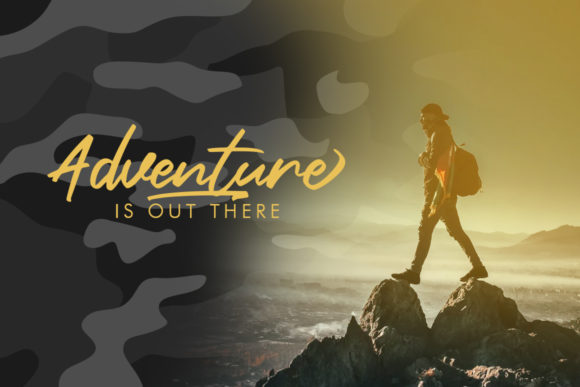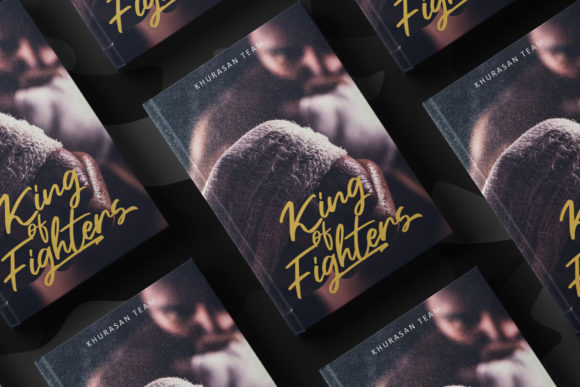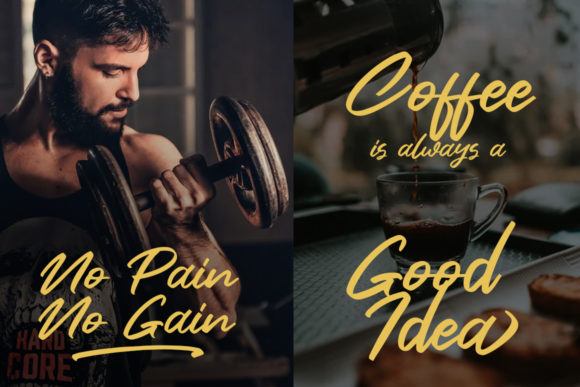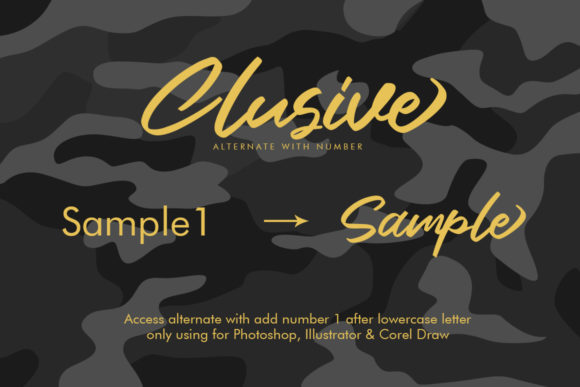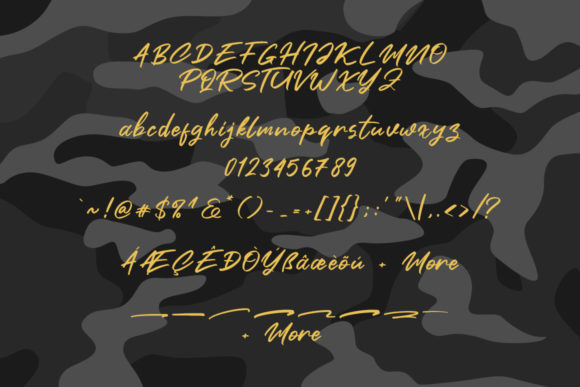
Discover the Elegance of Clusive Font: Elevate Your Designs to New Heights
Are you on the hunt for a font that exudes sophistication, elegance, and a touch of modern flair? Look no further than Clusive Font, a stunning handwritten typeface that is sure to capture your heart. Designed with meticulous attention to detail, Clusive seamlessly blends classic calligraphic elements with a contemporary twist, making it the perfect addition to your design arsenal.
The Essence of Clusive Font
Clusive Font is an exquisite handwritten font, masterfully crafted to become a true favorite among designers and crafters alike. Its classy calligraphic influences are evident in its fluid strokes and elegant letterforms, yet it feels refreshingly modern and versatile. Whether you’re working on a branding project, crafting a beautiful wedding invitation, or designing a stylish blog, Clusive is the perfect choice to elevate your work to the highest levels.
What Makes Clusive Font Stand Out?
- Unique and Elegant Design: Clusive boasts a distinctive, handcrafted aesthetic that sets it apart from more generic fonts. Its elegant lines and refined letterforms make it ideal for projects where sophistication is key.
- Versatility: This font is incredibly versatile, suitable for a wide range of applications, from luxury branding and advertising to packaging, stationery, and digital media.
- Legibility: Despite its elegant and cursive nature, Clusive maintains excellent legibility, ensuring your message is conveyed clearly and effectively.
- Contemporary Feel: While deeply rooted in calligraphic traditions, Clusive has a contemporary edge that makes it perfect for modern design projects.
How to Use Clusive Font in Your Projects
Integrating Clusive Font into your designs is straightforward, and its flexibility means it can be used in a multitude of ways:
- Branding and Logotypes: Use Clusive to create a memorable and luxurious brand identity that stands out from the competition.
- Wedding and Event Stationery: Add a touch of elegance to your wedding invitations, menus, and programs with this beautiful font.
- Digital and Print Media: Clusive is perfect for blog headers, social media graphics, magazine articles, and any other printed or digital material where style and sophistication are paramount.
- Packaging and Product Design: Elevate your product labels, packaging, and advertising materials with a font that exudes quality and refinement.
Tips for Getting the Most Out of Clusive Font
To truly leverage the potential of Clusive, consider the following tips:
- Pair it Wisely: Combine Clusive with complementary fonts to create visual interest and hierarchy in your designs.
- Experiment with Colors: While Clusive looks stunning in classic black and white, don’t be afraid to experiment with colors that match your brand or project’s aesthetic.
- Adjust Letter Spacing: For optimal readability, especially in longer texts, adjust the letter spacing to ensure your text is easy to read.
Clusive Font is more than just a typeface; it’s a design statement. Its exquisite blend of traditional calligraphy and modern sensibilities makes it an invaluable asset for designers and crafters looking to imbue their projects with elegance and sophistication. Whether you’re aiming to create a lasting impression with a brand identity, craft beautiful stationery, or simply elevate your digital content, Clusive is sure to exceed your expectations. Fall in love with Clusive and discover a world of design possibilities that will take your projects to new heights.